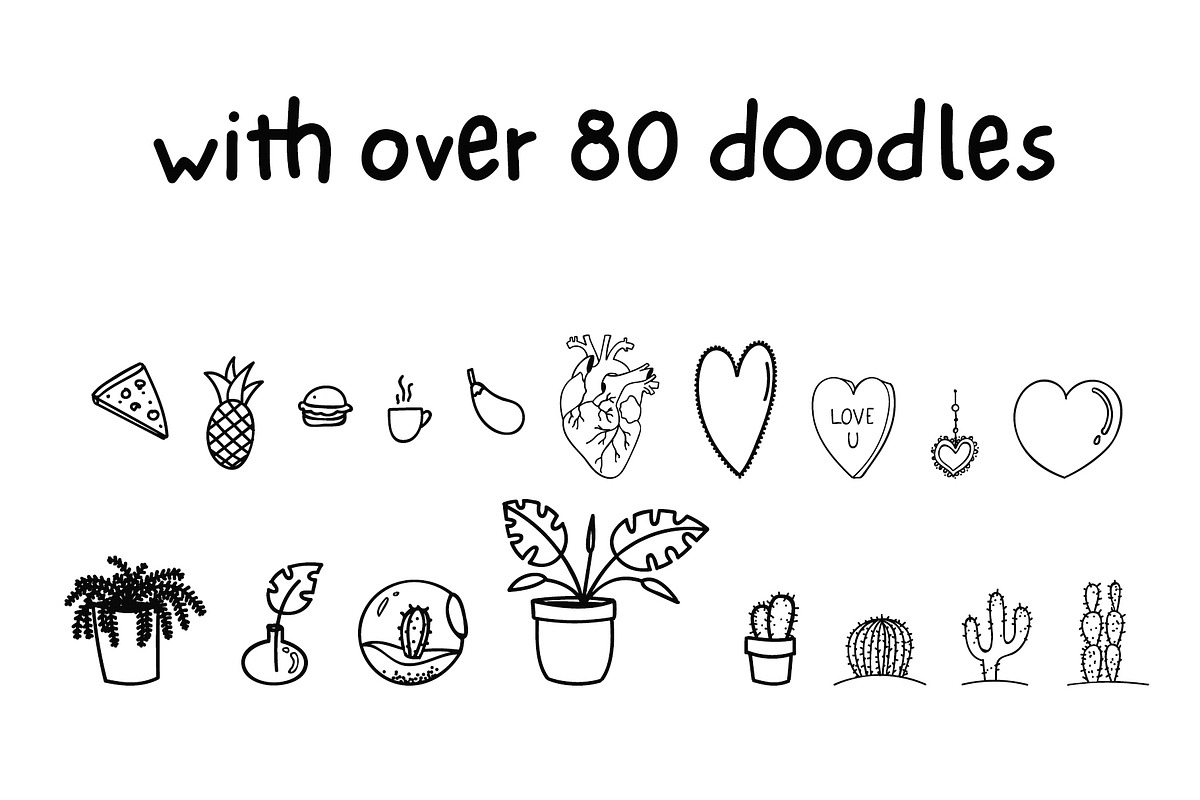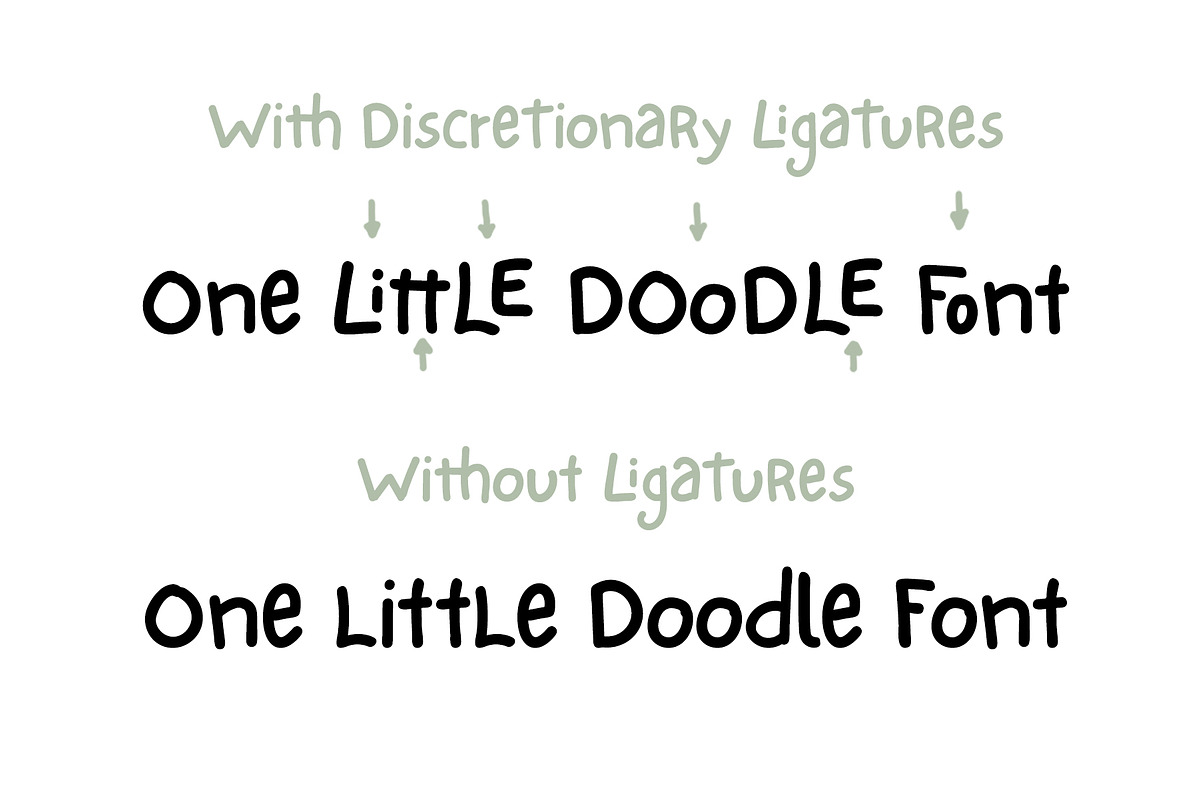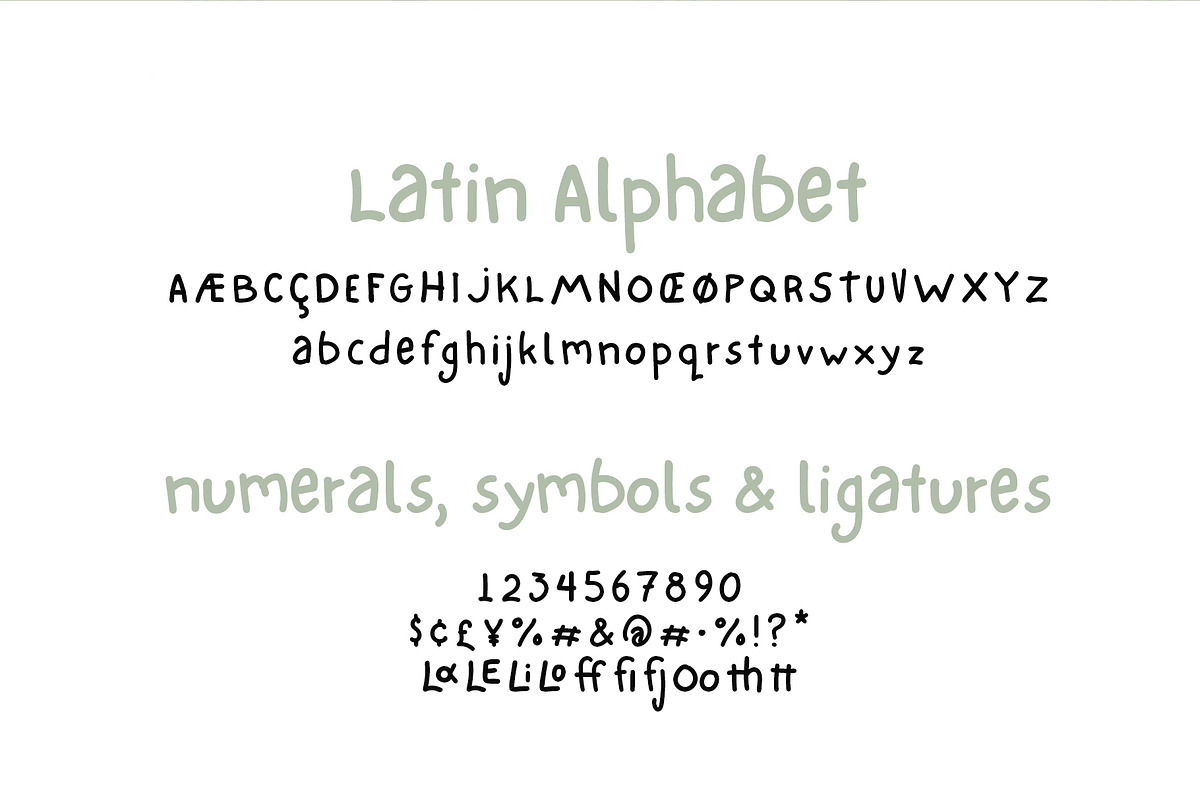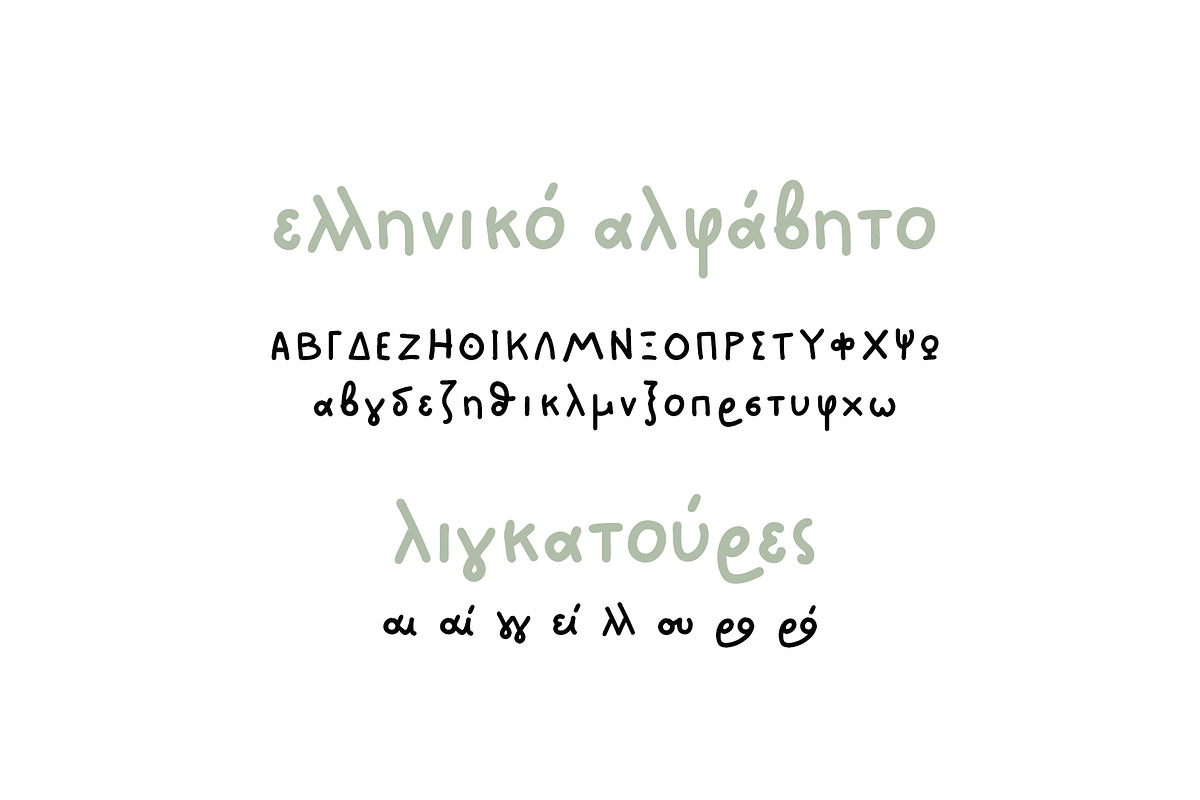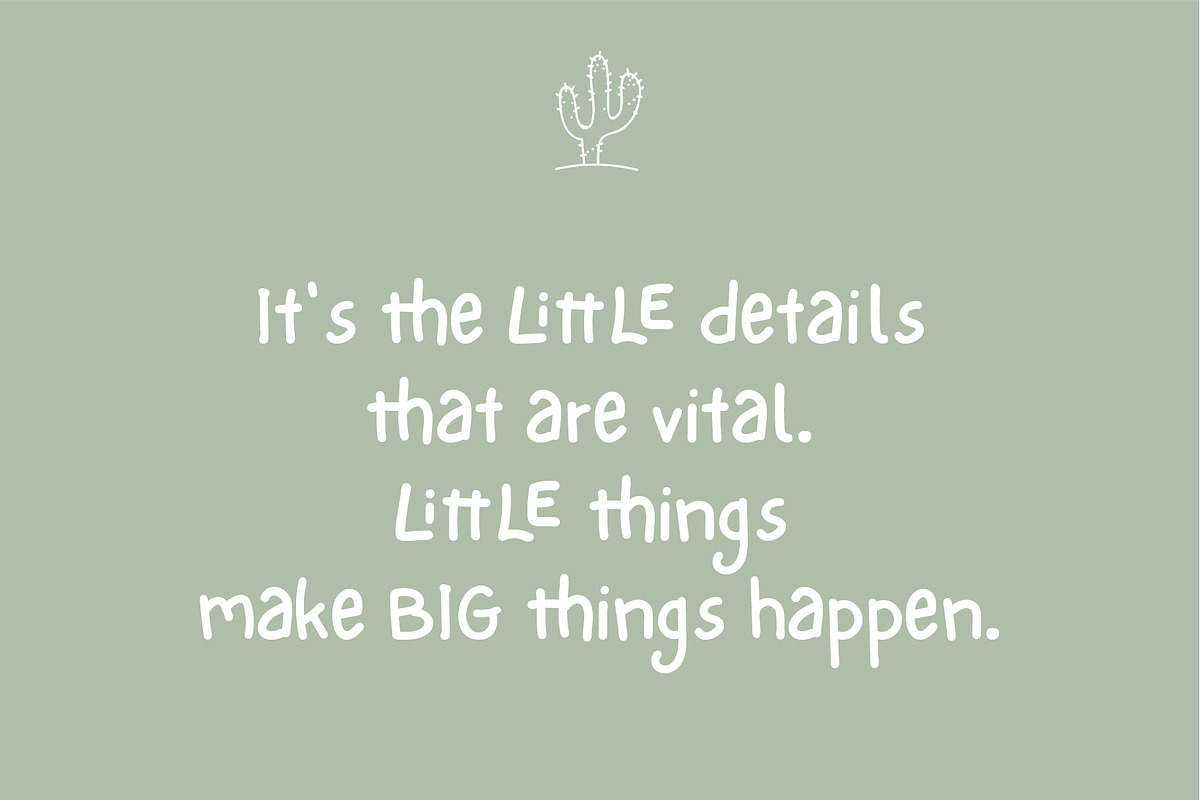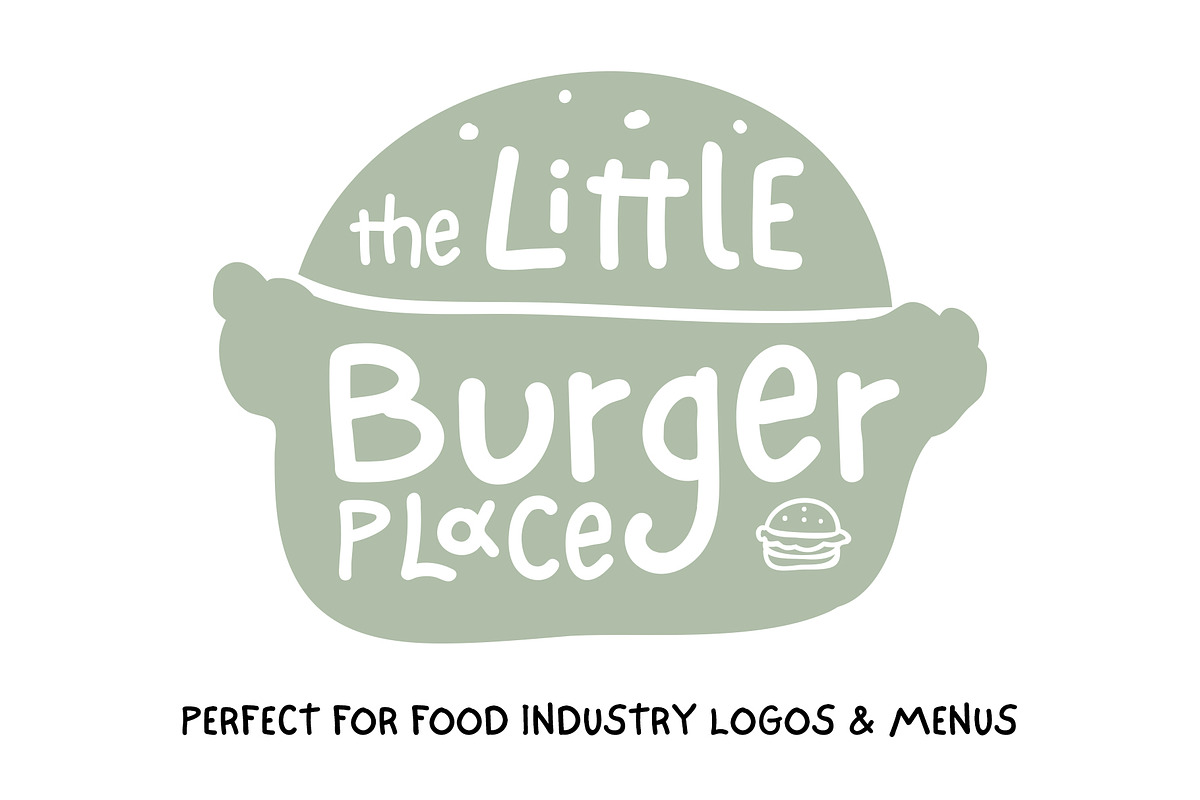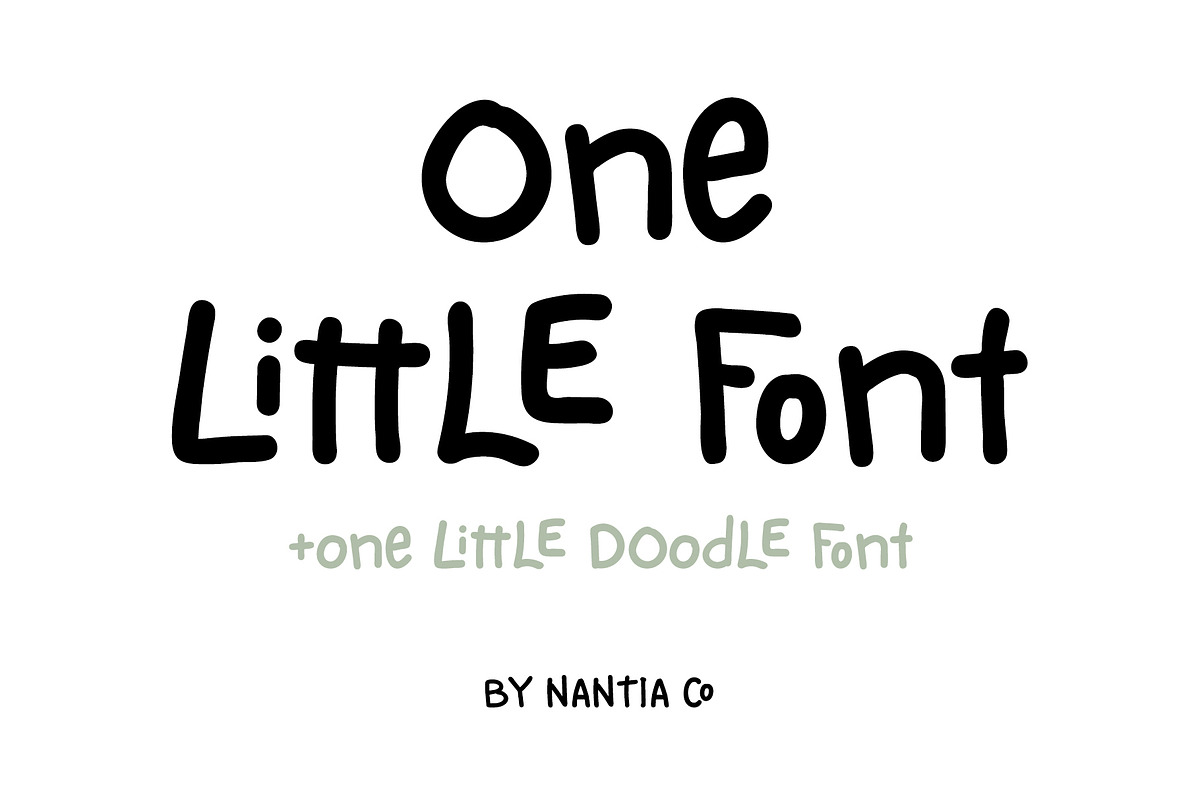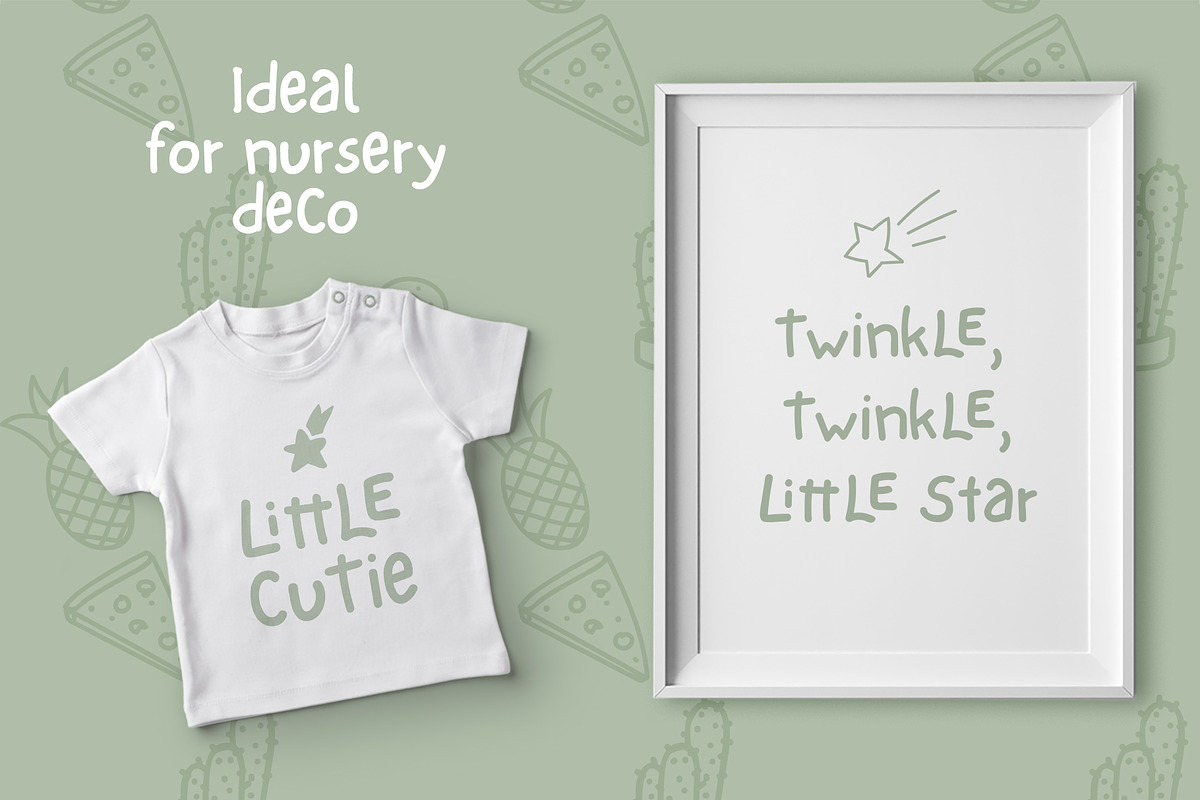
One Little Font Greek / Latin
One Little Font Greek / Latin by Greek fonts by nantia.co is a font selected for branding, posters, packaging, typography.
- With double letter ligatures and stylistic alternates, this One Little Font can be a mighty companion to your next graphic design project.
- One Little Font in two weights Extended Latin Characters Greek Characters Ligatures Numerals One Little Doodle Font 80+ doodle icons in PUA
- One Little Font is a Greek font and an Extended Latin Font and that makes it a multilingual font.
Why One Little Font Greek / Latin is worth a look
One Little Font Greek / Latin by Greek fonts by nantia.co fits naturally into Branding, posters, packaging, typography.